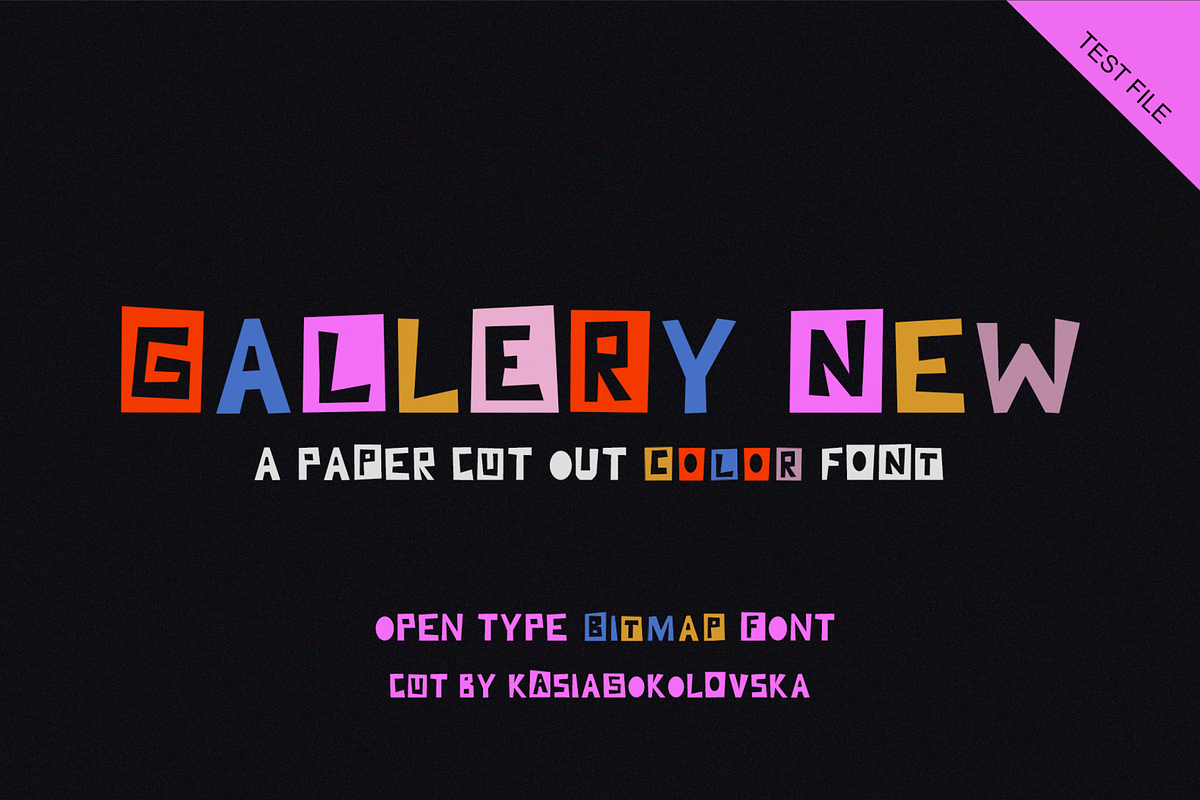
Paper Cut Out Color Bitmap Font Free Download is a playful and creative typeface that brings a fun, handmade look to your designs. Inspired by paper cutouts, this font adds a unique, textured feel to any project. Ideal for posters, children’s books, creative branding, and more, the color bitmap style makes it perfect for digital designs that require a quirky, artistic touch.